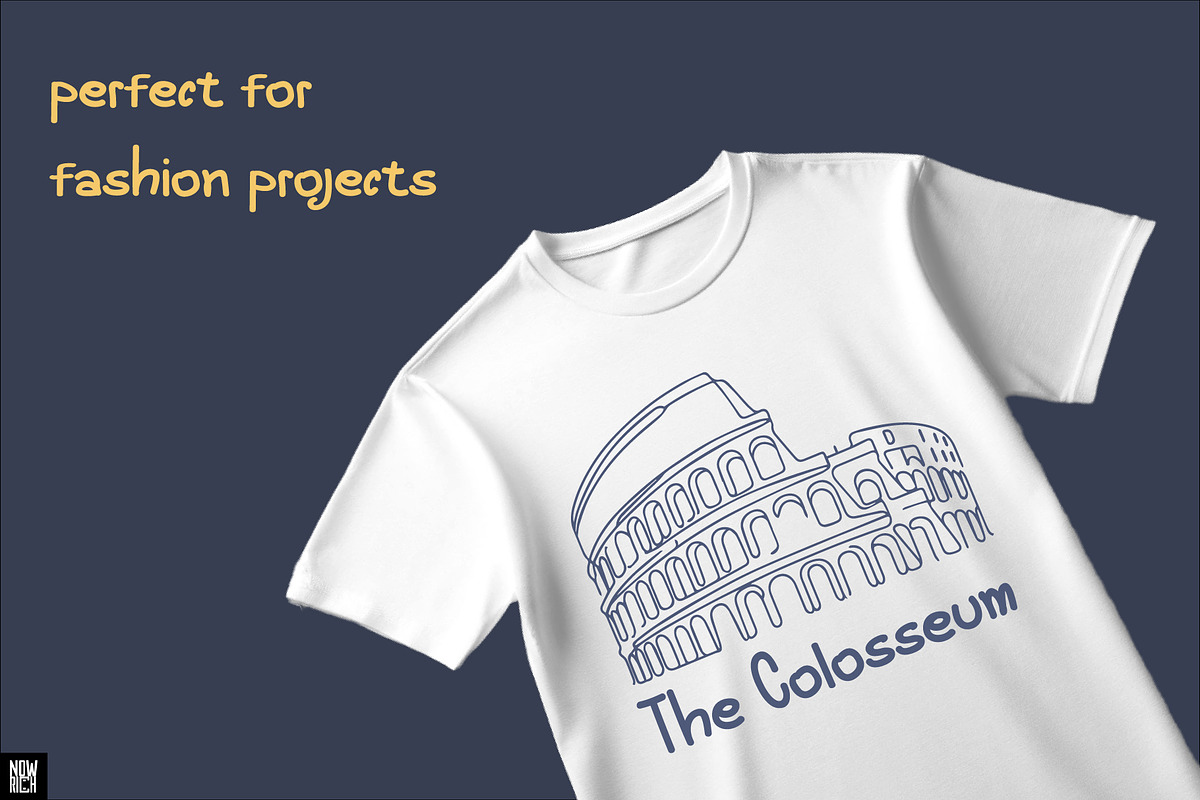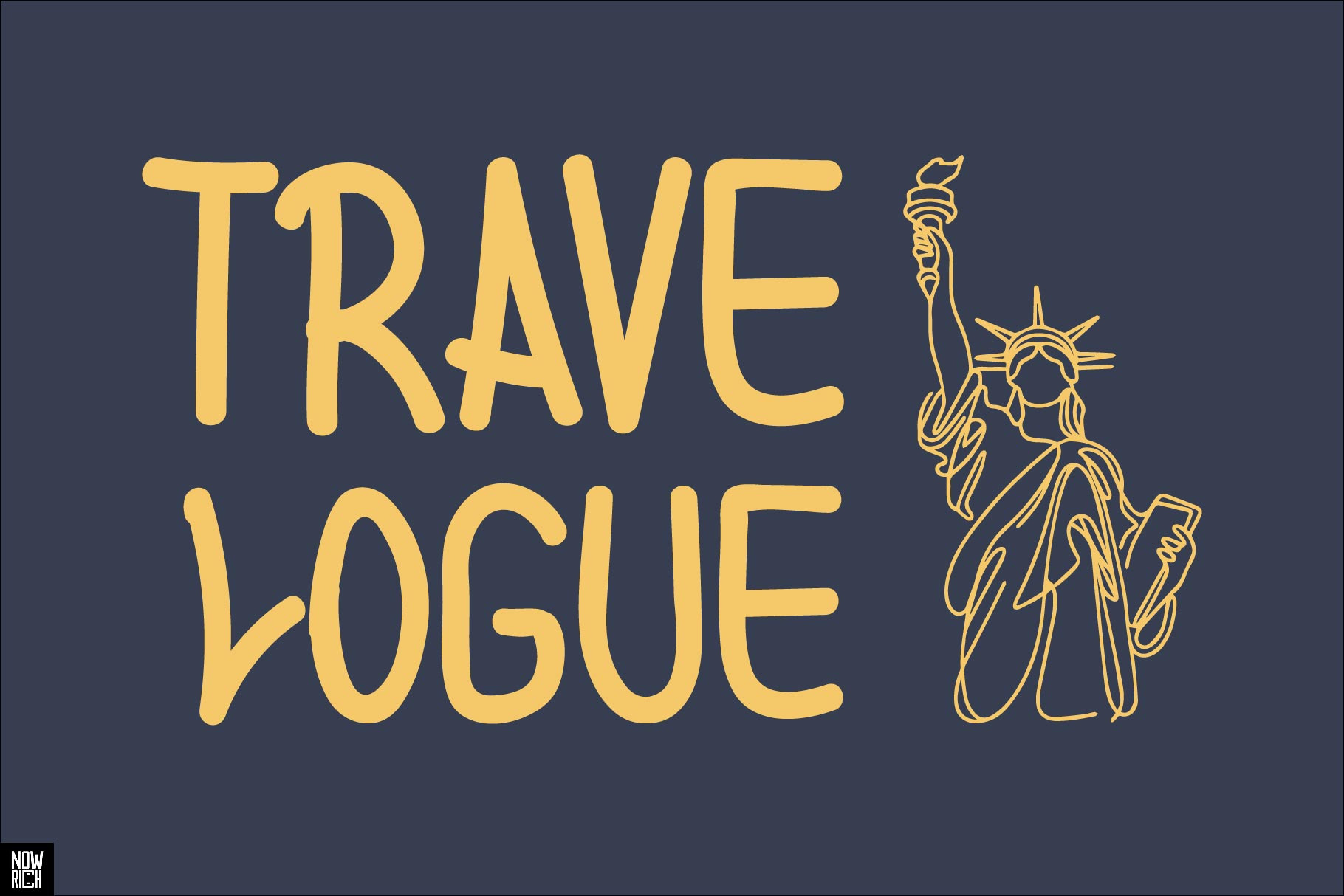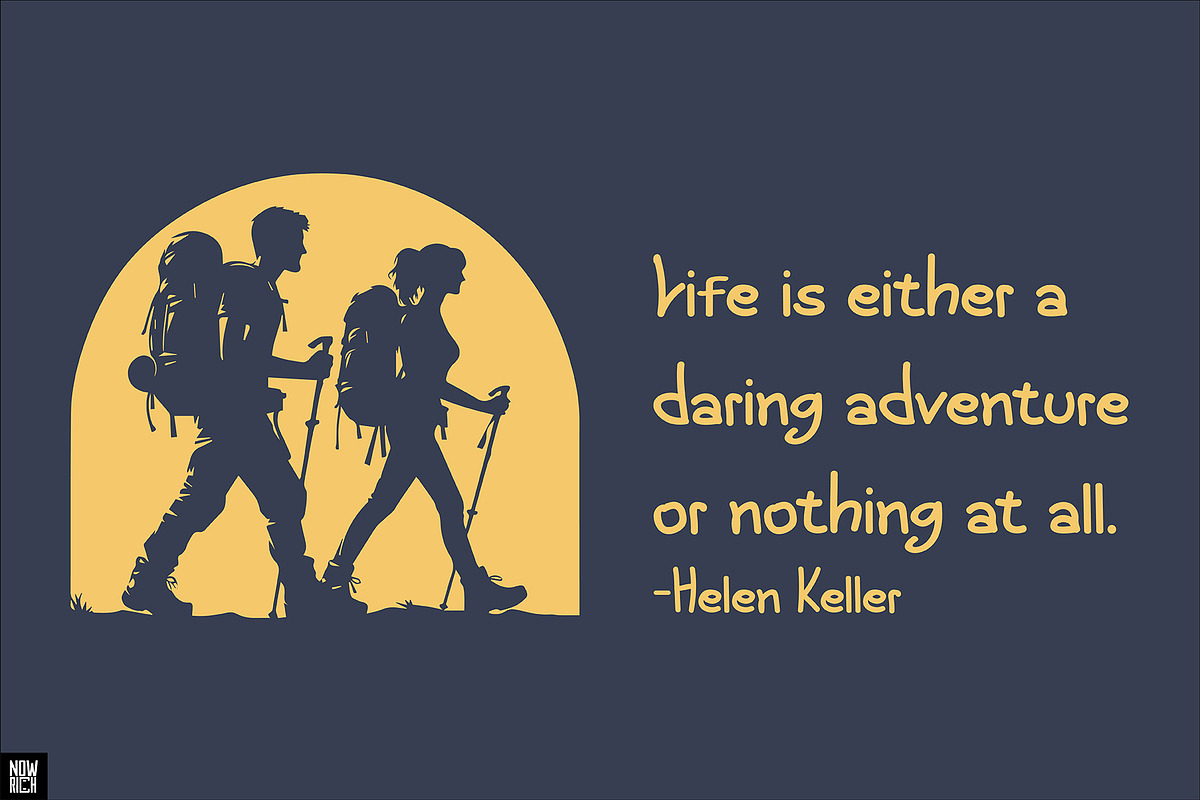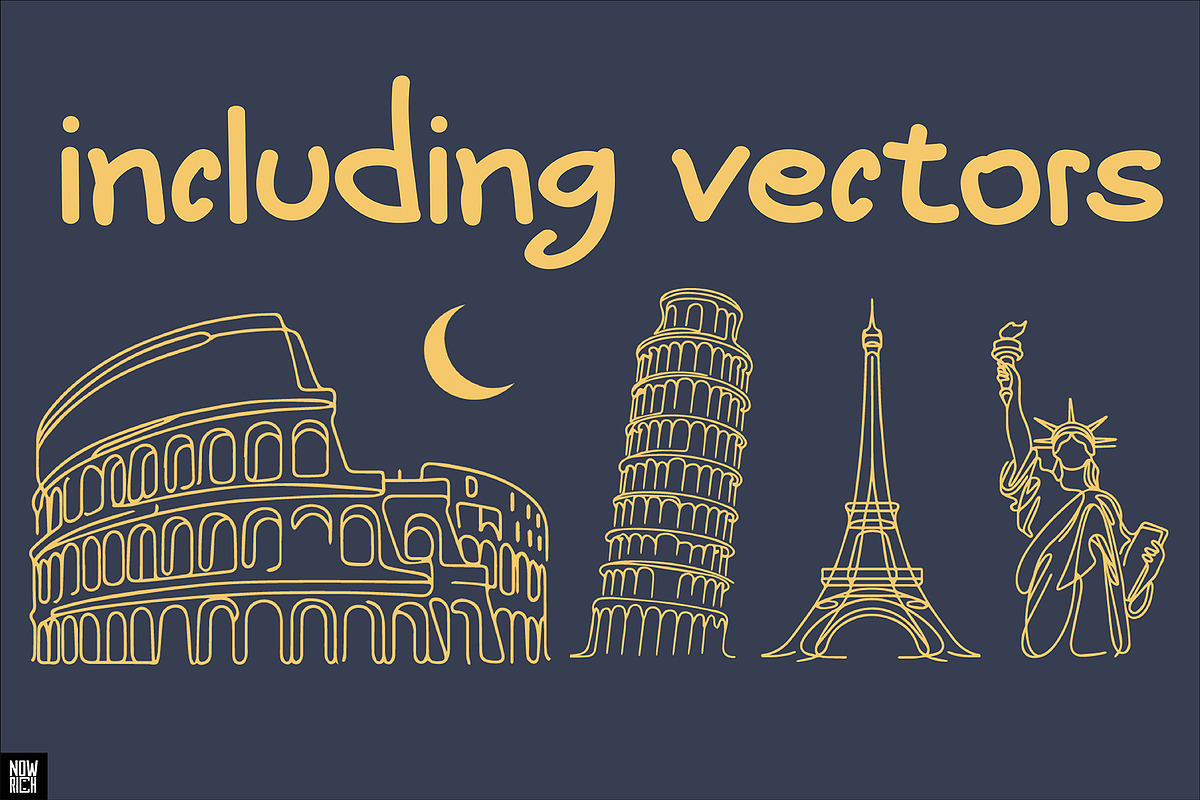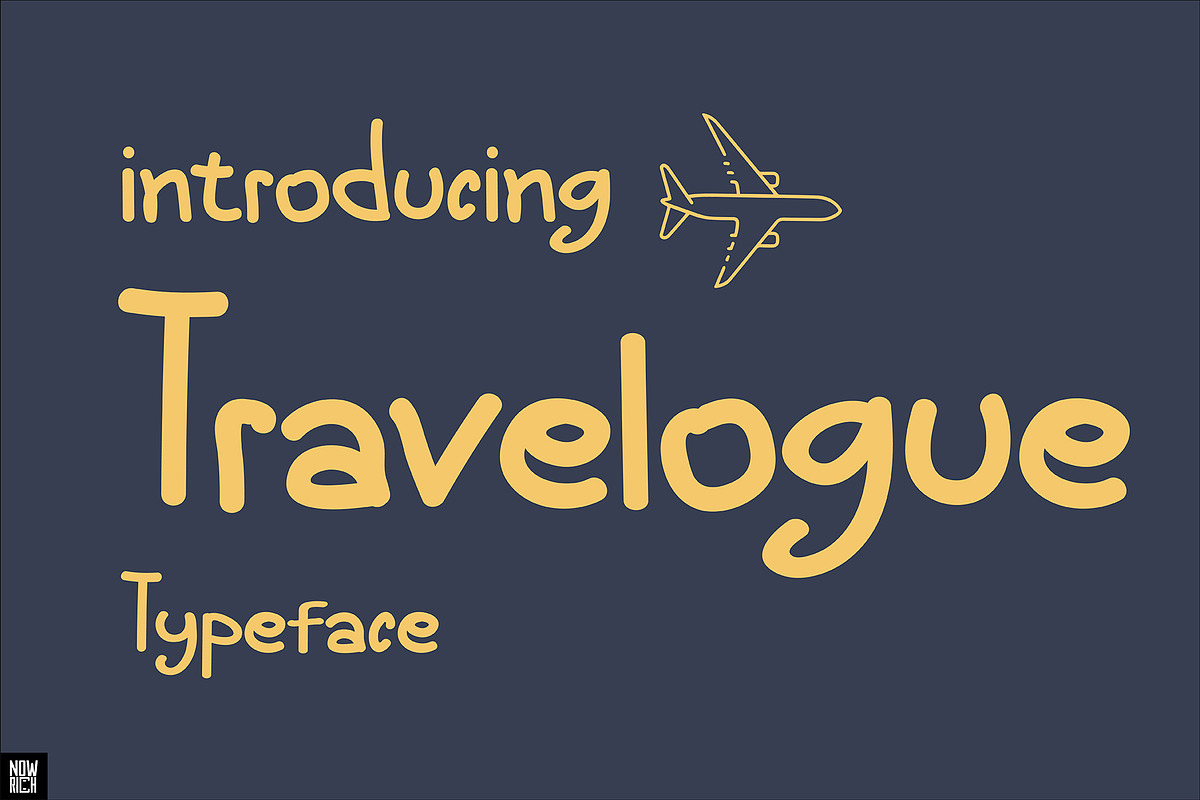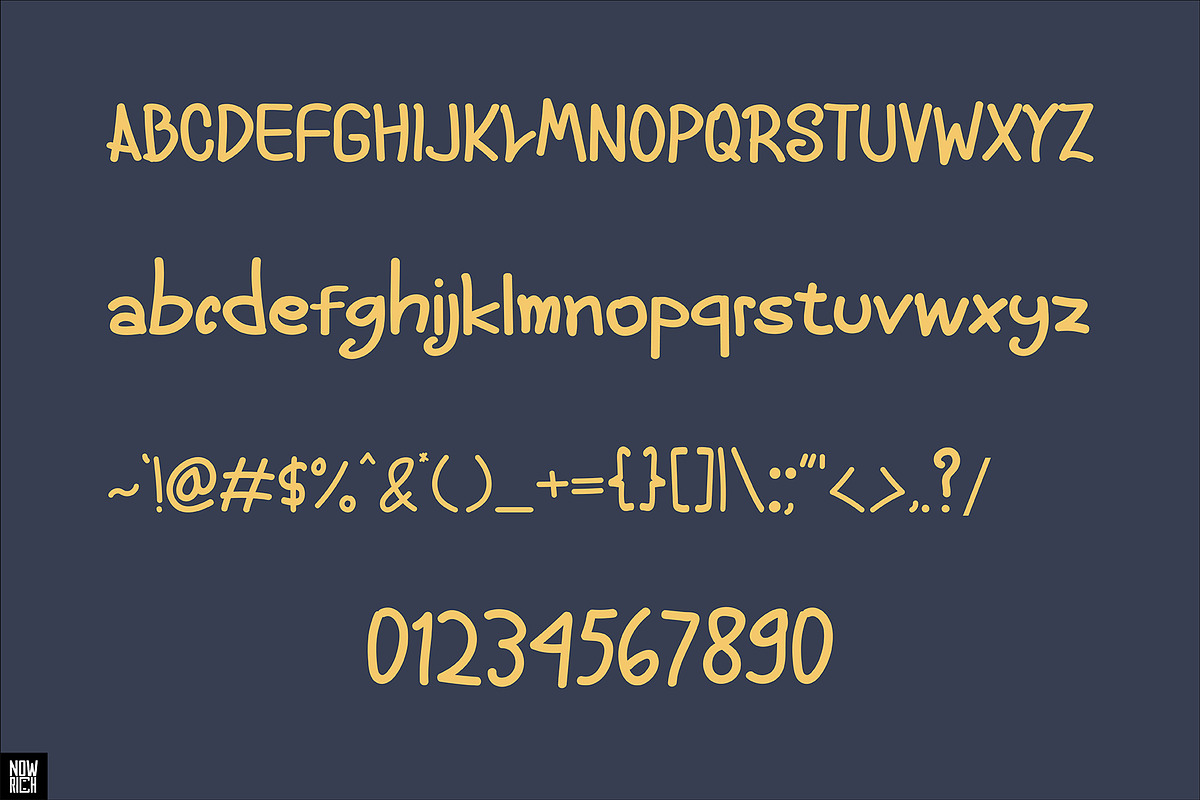
Travelogue Typeface
Introducing Travelogue Typeface:
a modern twist on the classic blackletter font style. With a unique blend of references and my personal design flair, this font is perfect for branding, logos, tattoos, illustrations, posters, and more. Stand out with its captivating uppercase and lowercase characters. Ideal for those seeking a blend of tradition and innovation in their graphic projects.